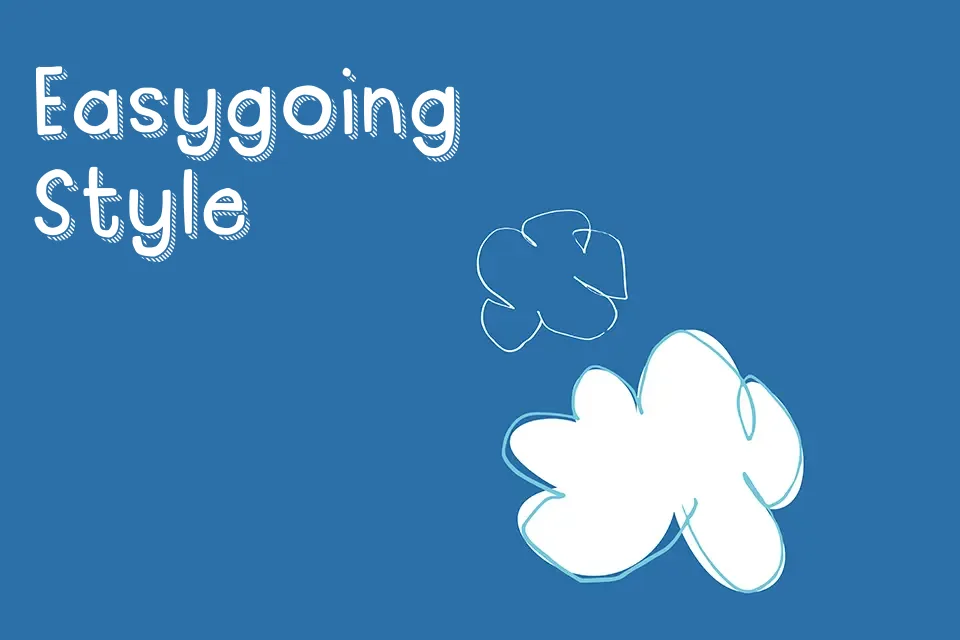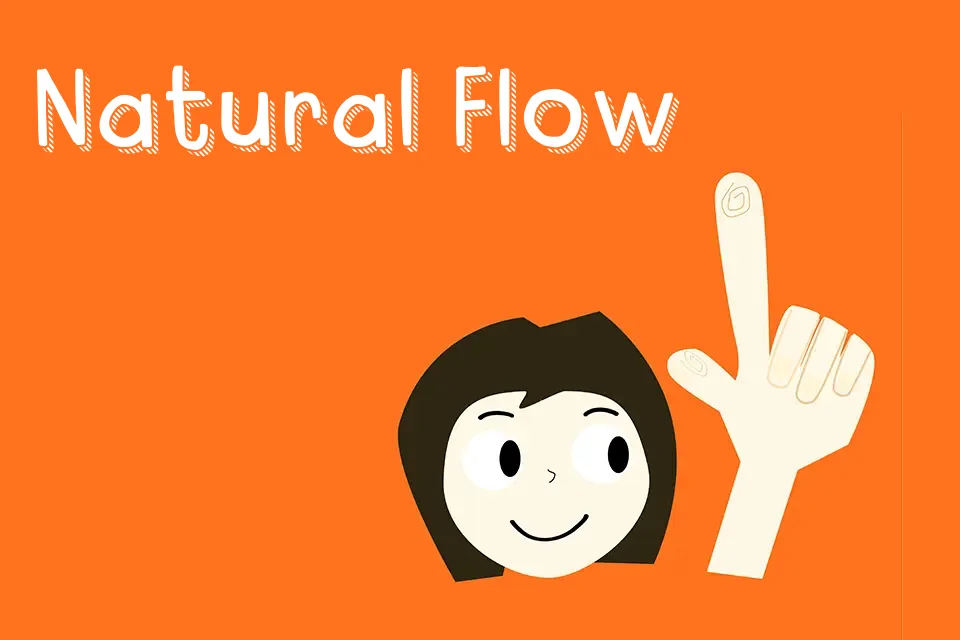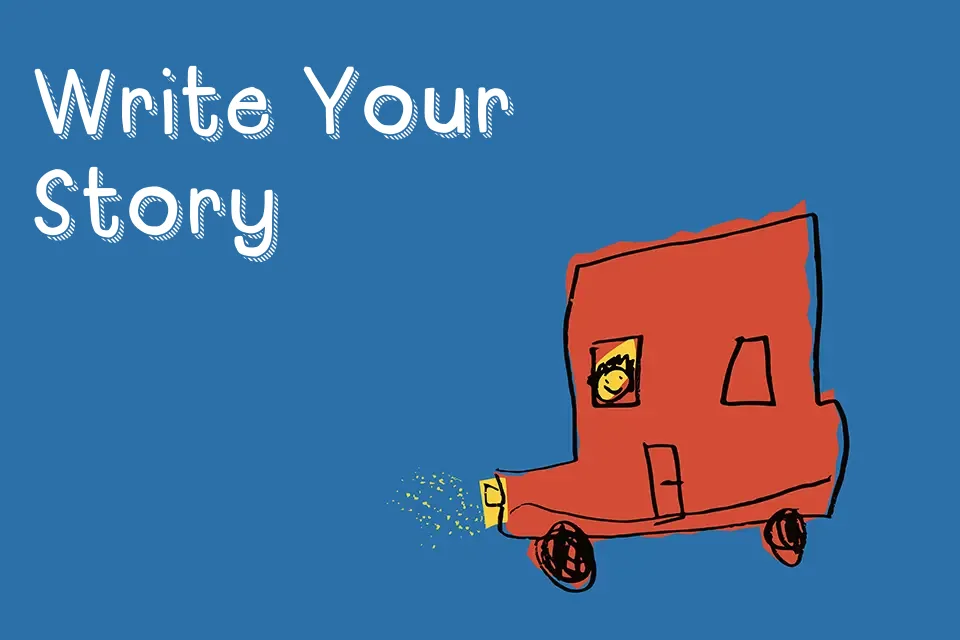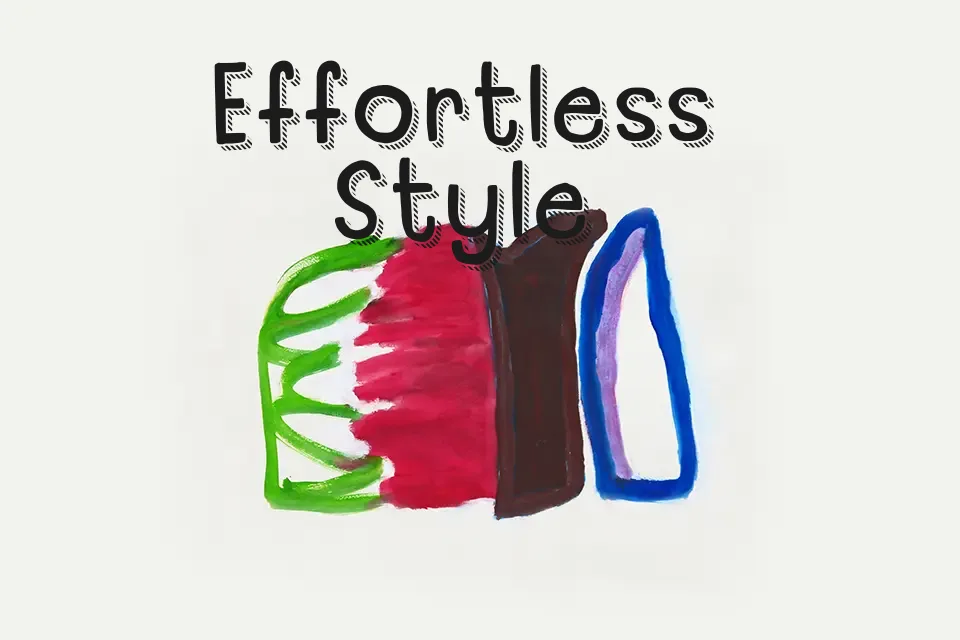
Regular Fashion Font
Designed by Jakob Fischer
Regular Fashion performs best when displayed at larger sizes, allowing its quirky, child-like handwriting aesthetic to be fully appreciated. The letterforms feature uneven strokes, fluctuating baseline rhythms, and an authentically casual structure. These slightly irregular lines bring a playful, human touch to short bursts of text, making the overall design feel highly energetic and approachable. However, the varying character widths and lack of rigid alignment reduce continuous reading comfort, making the typeface less suitable for dense paragraphs or lengthy editorial content. Its organic, imperfect charm provides a strong visual personality that naturally enhances informal headlines, comic layouts, and youthful product packaging.
Best For: children’s book covers, playful product packaging, informal social media graphics, toy brand logos
Not Ideal For: long paragraph text, corporate reports, technical documentation, dense editorial layouts
Perfect for headline, kids, and packaging, with a cute and cartoon style.